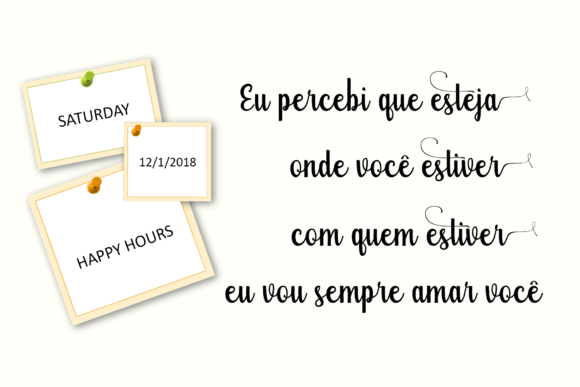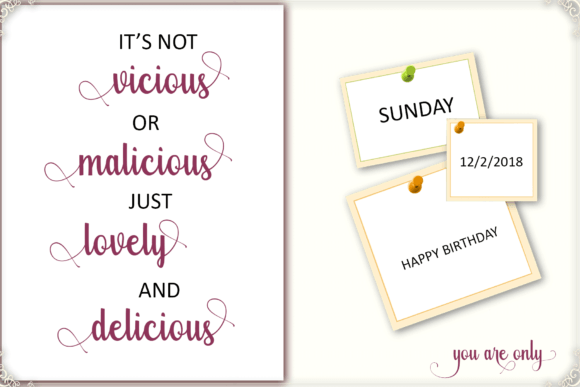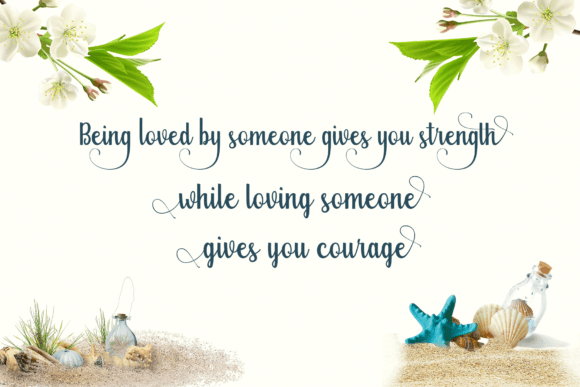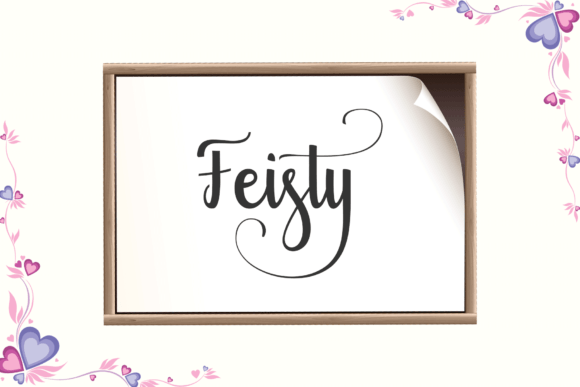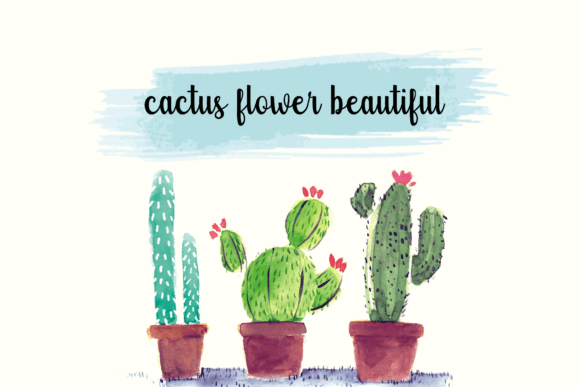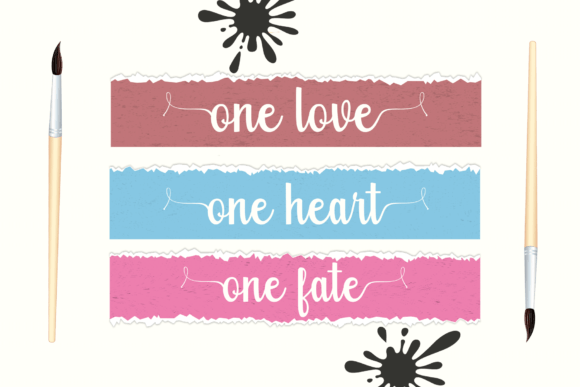
The Magic of Glitter Font: Elevate Your Designs with Elegance and Charm
Typography is an essential element in design, capable of evoking emotions and setting the tone for your creative projects. When it comes to selecting the perfect typography, you don’t have to compromise on quality. One exceptional choice is the Glitter Font, a stunning script font that exudes romance and sophistication. In this article, we’ll explore the beauty of Glitter Font and how it can elevate your designs, from logos and wedding invitations to signage and posters.
The Allure of Glitter Font
Glitter Font is a beautiful script font that boasts an undeniable charm. Its bold yet elegant vintage script style makes it perfect for designers and crafters looking to add a touch of luxury to their work. This font is designed to make a statement, with intricate details and a romantic flair that will leave a lasting impression on your audience.
One of the most significant advantages of Glitter Font is its versatility. Its unique style makes it suitable for a wide range of design applications, including:
- Logos: Create a memorable brand identity with Glitter Font. Its bold and elegant style makes it perfect for logos that require a touch of sophistication.
- Wedding Invitations: Add a romantic touch to your wedding invitations and save-the-date cards with Glitter Font. Its vintage script style will make your wedding stationery truly unforgettable.
- Signage: Make a statement with Glitter Font on signage, banners, and posters. Its bold style ensures that your message will be seen and remembered.
- Posters: Create eye-catching posters with Glitter Font that will grab the attention of your audience. Its elegant style makes it perfect for promoting events, products, or services.
Why Choose Glitter Font?
With so many fonts available, why choose Glitter Font? Here are just a few reasons why designers and crafters love this beautiful script font:
- Unique Style: Glitter Font boasts a unique and distinctive style that will set your designs apart from the rest.
- Elegant and Sophisticated: This font exudes elegance and sophistication, making it perfect for designs that require a touch of luxury.
- Easy to Read: Despite its intricate details, Glitter Font is easy to read, making it perfect for body text and headlines.
- High-Quality: Glitter Font is a high-quality font that is designed to deliver exceptional results in your designs.
Tips for Using Glitter Font
To get the most out of Glitter Font, here are a few tips to keep in mind:
- Use it Sparingly: While Glitter Font is beautiful, it’s best to use it sparingly to avoid overwhelming your design. Use it for headlines, titles, or key phrases to add emphasis and create visual interest.
- Pair it with Other Fonts: Glitter Font pairs well with other fonts, especially sans-serif fonts. Experiment with different font combinations to create a unique and visually appealing design.
- Adjust the Size and Color: Play around with the size and color of Glitter Font to create a design that’s tailored to your needs.
| Font Name | Glitter Font |
| Author | Rt Creative |
In conclusion, Glitter Font is a beautiful script font that can elevate your designs with its elegance and charm. Its bold yet elegant vintage script style makes it perfect for a wide range of design applications, from logos and wedding invitations to signage and posters. With its unique style, high-quality design, and ease of use, Glitter Font is a must-have for designers and crafters looking to add a touch of luxury to their work.